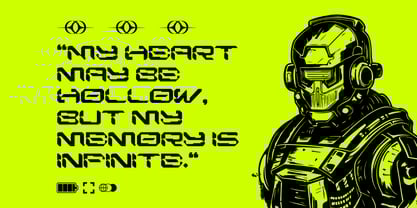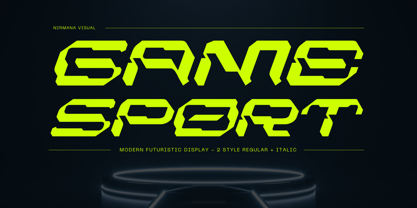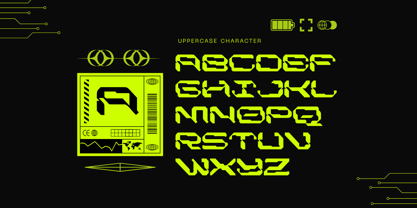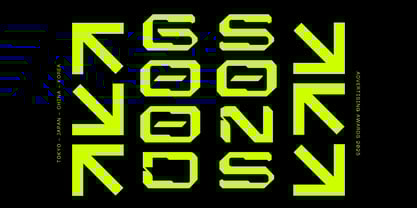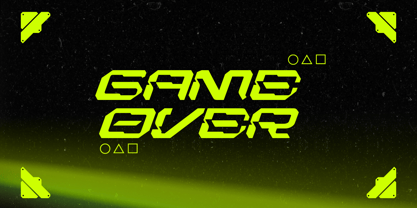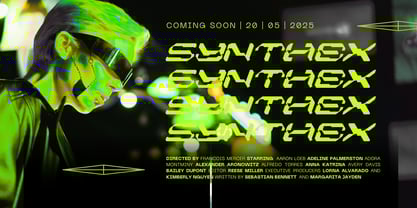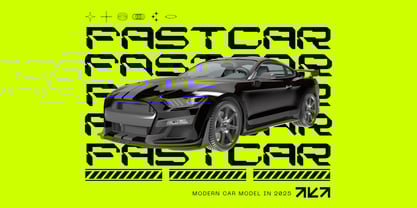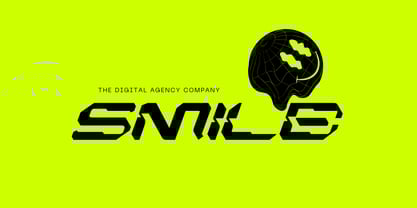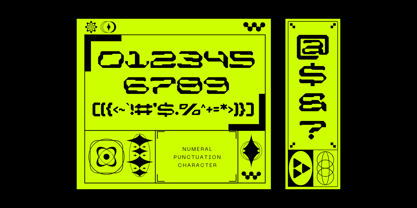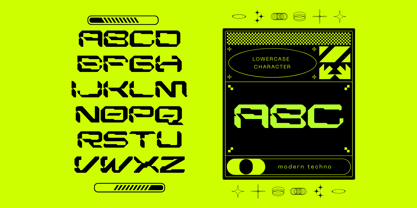
Game Sport
by Nirmana Visual
The Game Sport Font Family was designed by Sigit Dwipa and published by Nirmana Visual. Game Sport contains 2 styles and family package options. More about this family
Game Sport is a dynamic font built for action and energy, available in Regular and Italic styles. Its bold lines, sharp angles, and athletic feel make it perfect for sports teams, gaming titles, and active brand logos. Designed to capture movement and power, Game Sport brings intensity and focus to any design. Ideal for branding that needs to stand out with strength, speed, and a competitive edge.